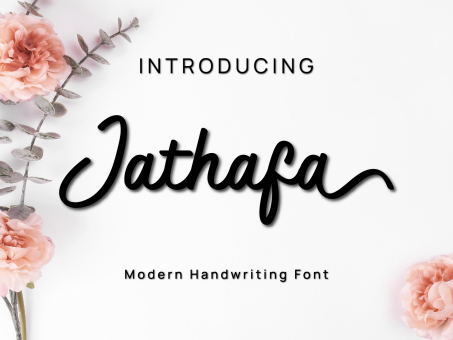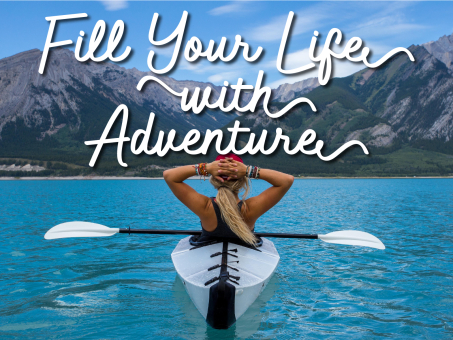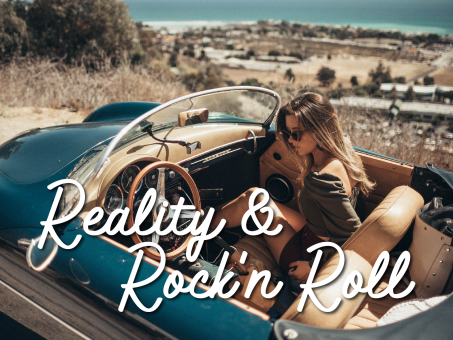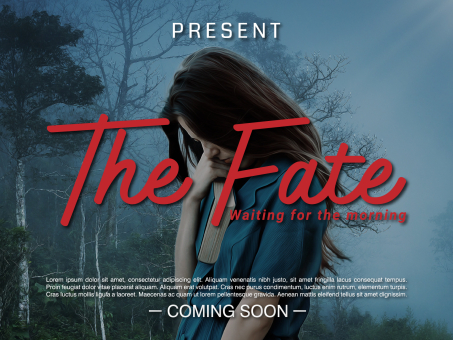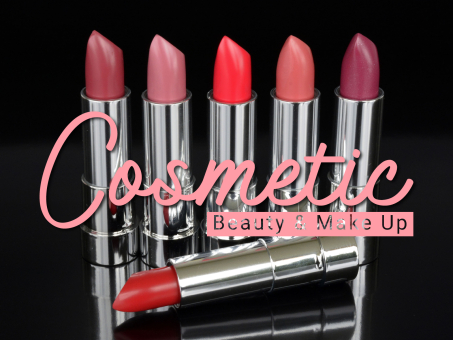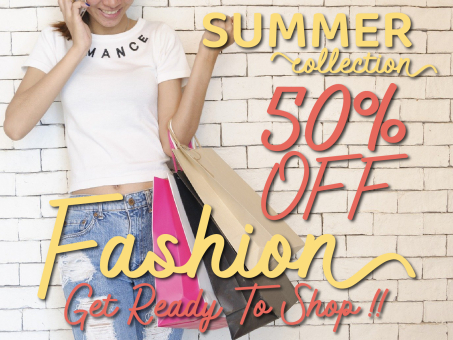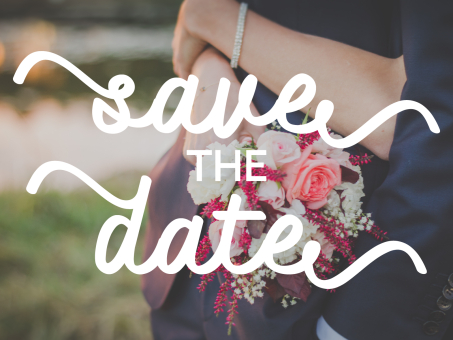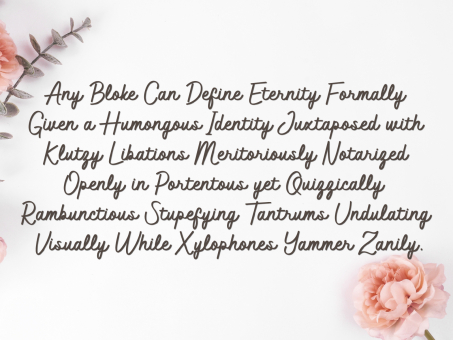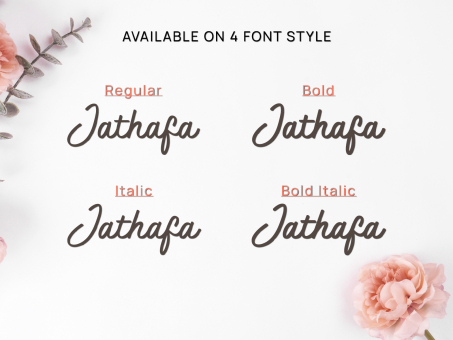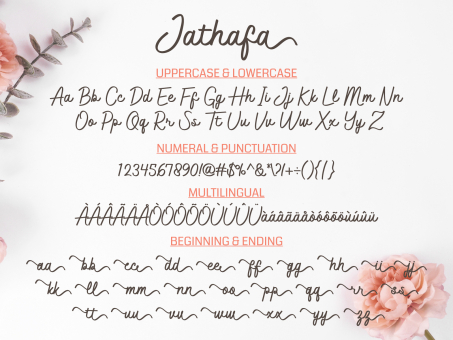
Jathafa
Jathafa is a cute and casual handwritten font with a very friendly feel. Whether you’re looking for fonts to make beautiful wedding invitations, beautiful artwork, interesting social media posts, and funny greeting cards.
Jathafa also has several alternative letters that can make your project look modern, luxurious and classy. This font will turn any creative idea into a true work of art!
Designer: Jprint Studio